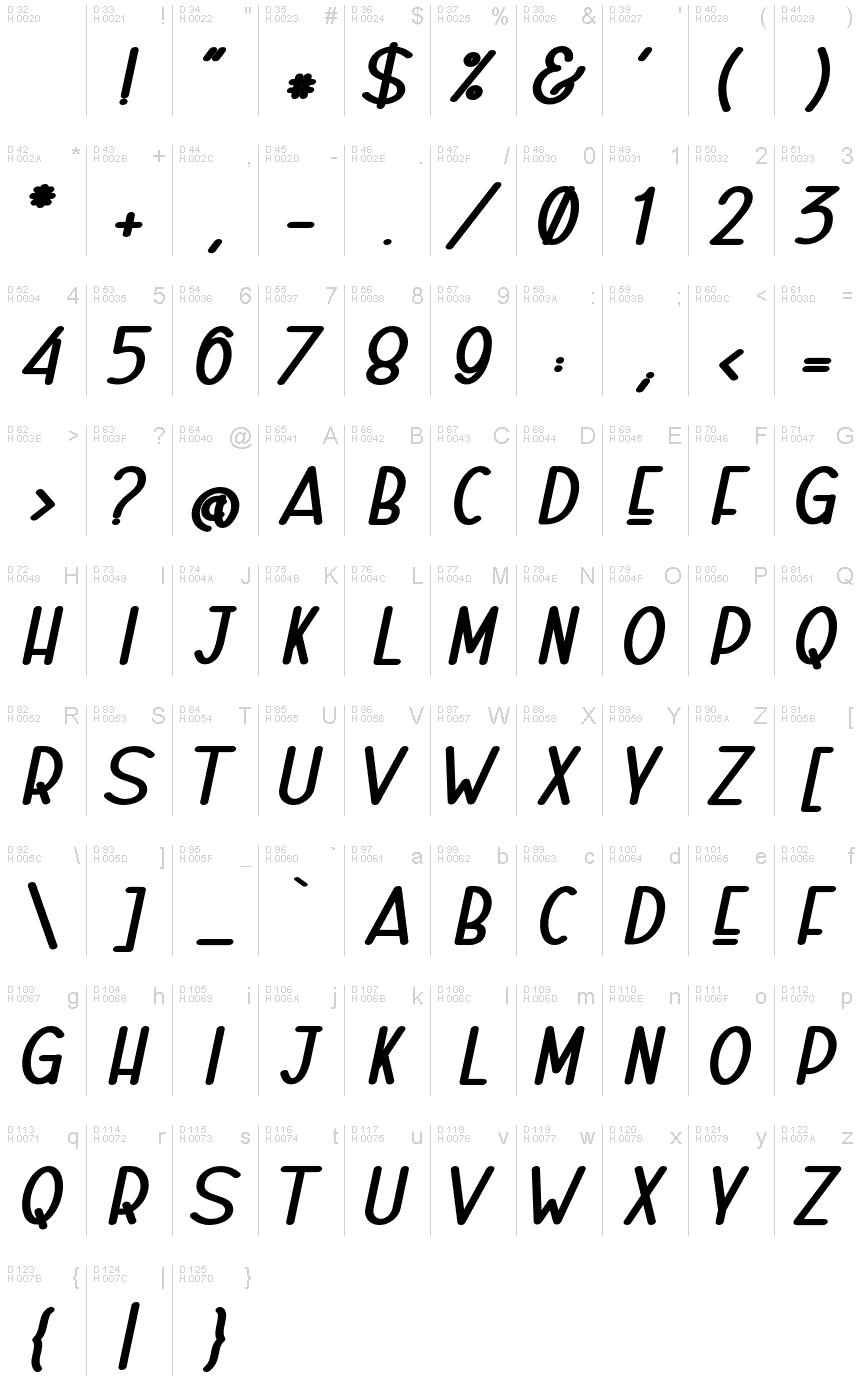
Naura-BoldSlant_DEMO
Naura! A monoline display font with all uppercase glyphs, regular and slant. Naura font is suitable for branding, logotype, apparel, T-shirt, Hoodie, product packaging, quotes, flyer, poster, advertising, etc.
1. Uppercase characters
2. Multilingual support.
3. Numerals, punctuations, alternates, and ligatures